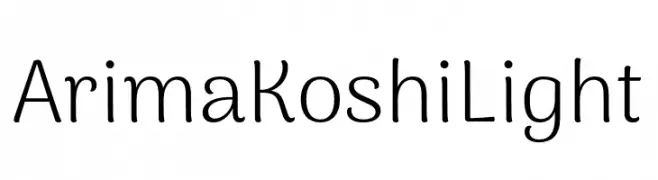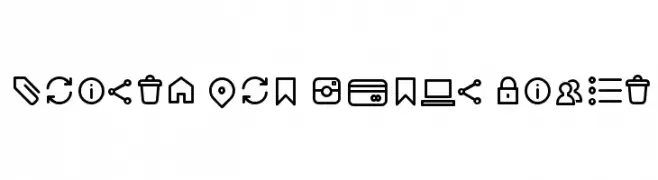
• Argentum Sans Light Italic
A modern, light, italic sans-serif font with clean lines and low contrast.
• Arggh @$*# Lite
• Arima Koshi Light
A clean, modern font with rounded edges and consistent stroke width, offering excellent readability.
• Arima Madurai Light
A clean, modern font with rounded edges and balanced proportions.
• ArimaMadurai-Light
A clean, modern font with elegant proportions and consistent stroke width.
• ArimaMadurai-Light
A clean, modern font with rounded edges and excellent readability.
• Arista 2.0 Alternate Light
A modern, rounded font with geometric structure and even spacing.
• Arista 2.0 Light
A modern, rounded sans-serif font with a minimalist design.
• Arista Pro Alternate Light
A modern, rounded font with a clean and smooth appearance.
• Arista Pro Icons Light
A minimalist set of line-based icons with a modern and clean design.